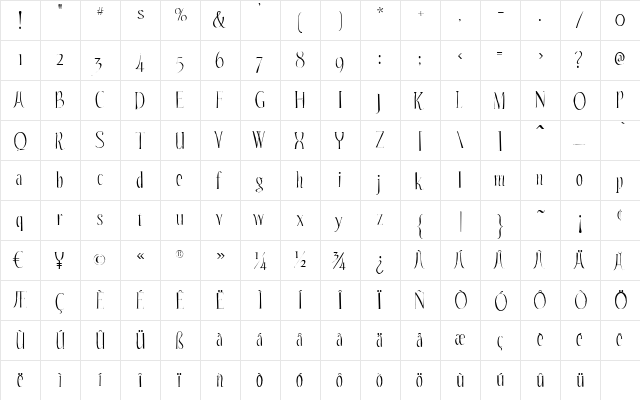
Echelon Gaunt Regular
| Designer | Ray Larabie - Larabie Fonts |
Design Context for Echelon Gaunt Typeface
Echelon Gaunt offers clean, dependable letterforms without strong stylistic allegiance, making it a practical choice for designers who need flexibility.